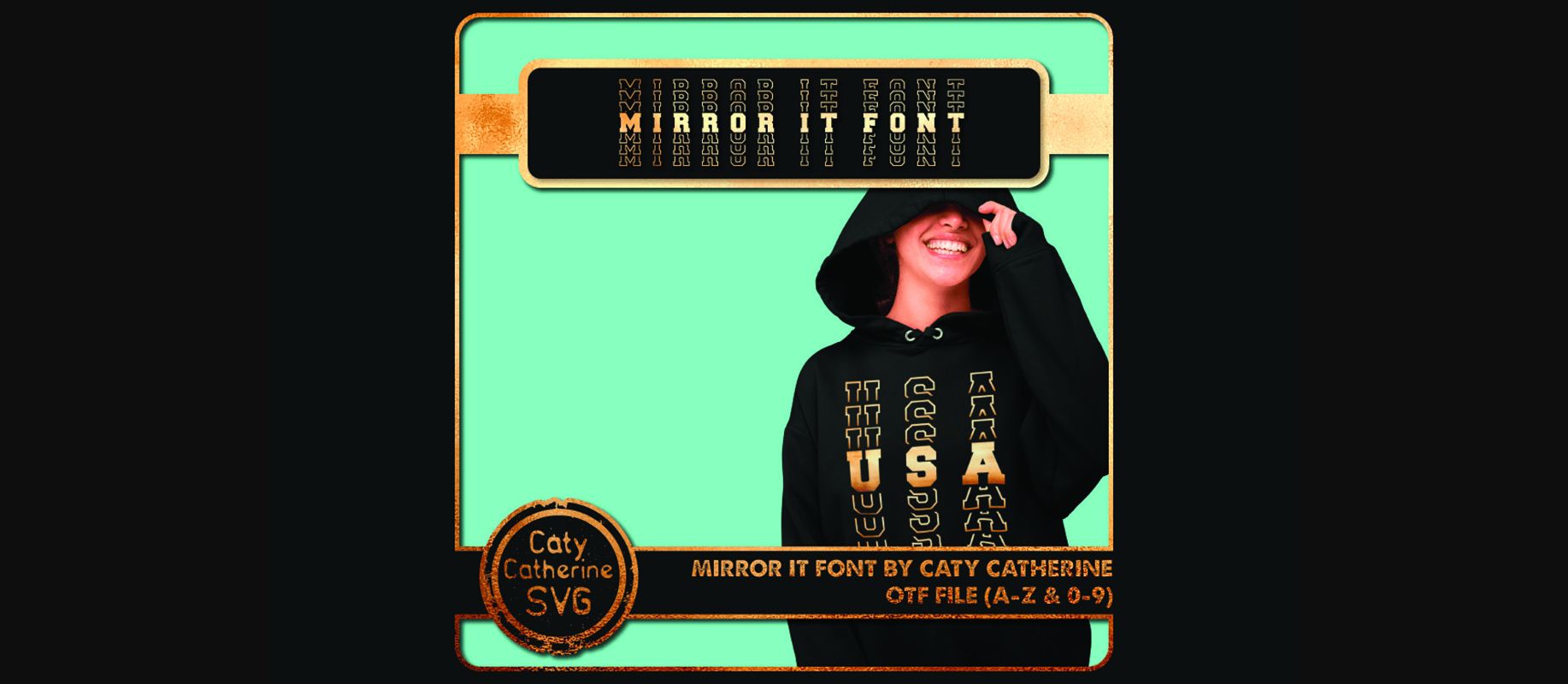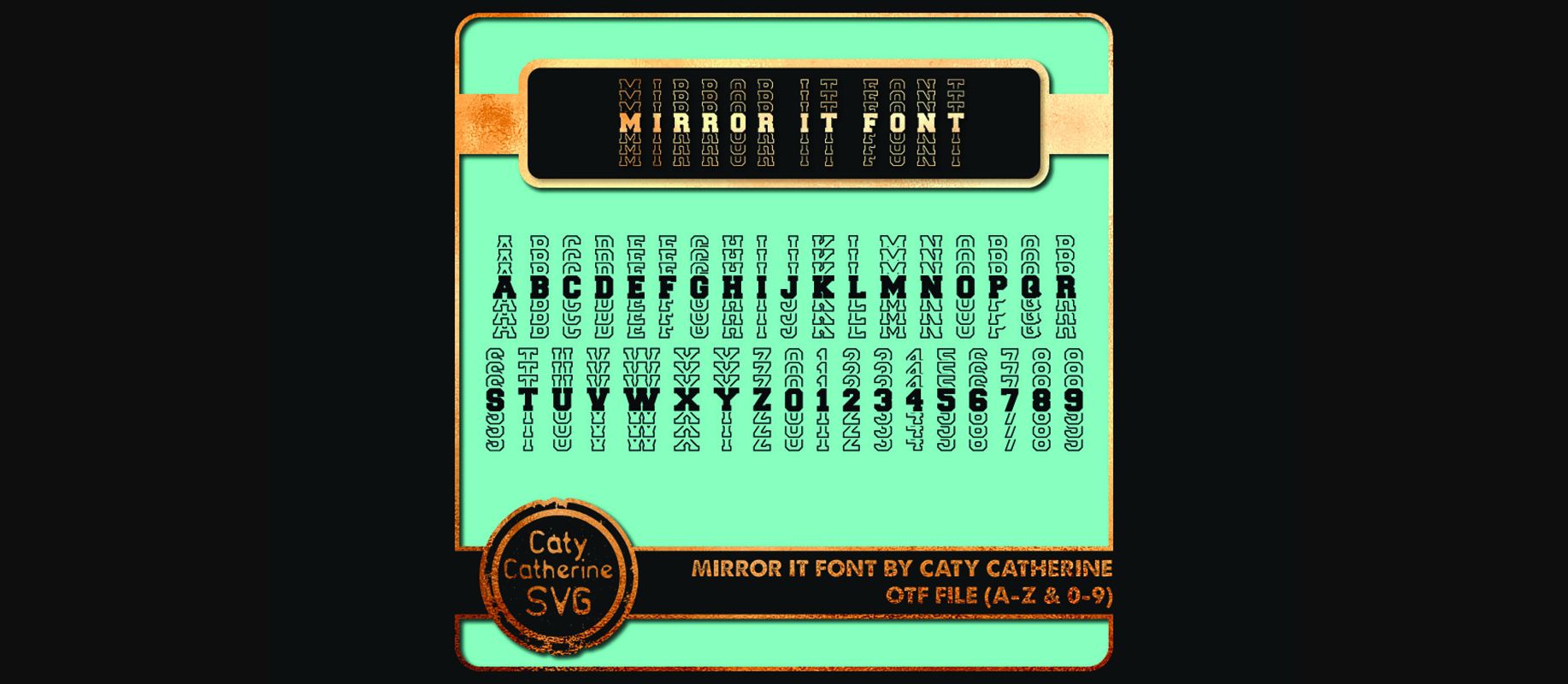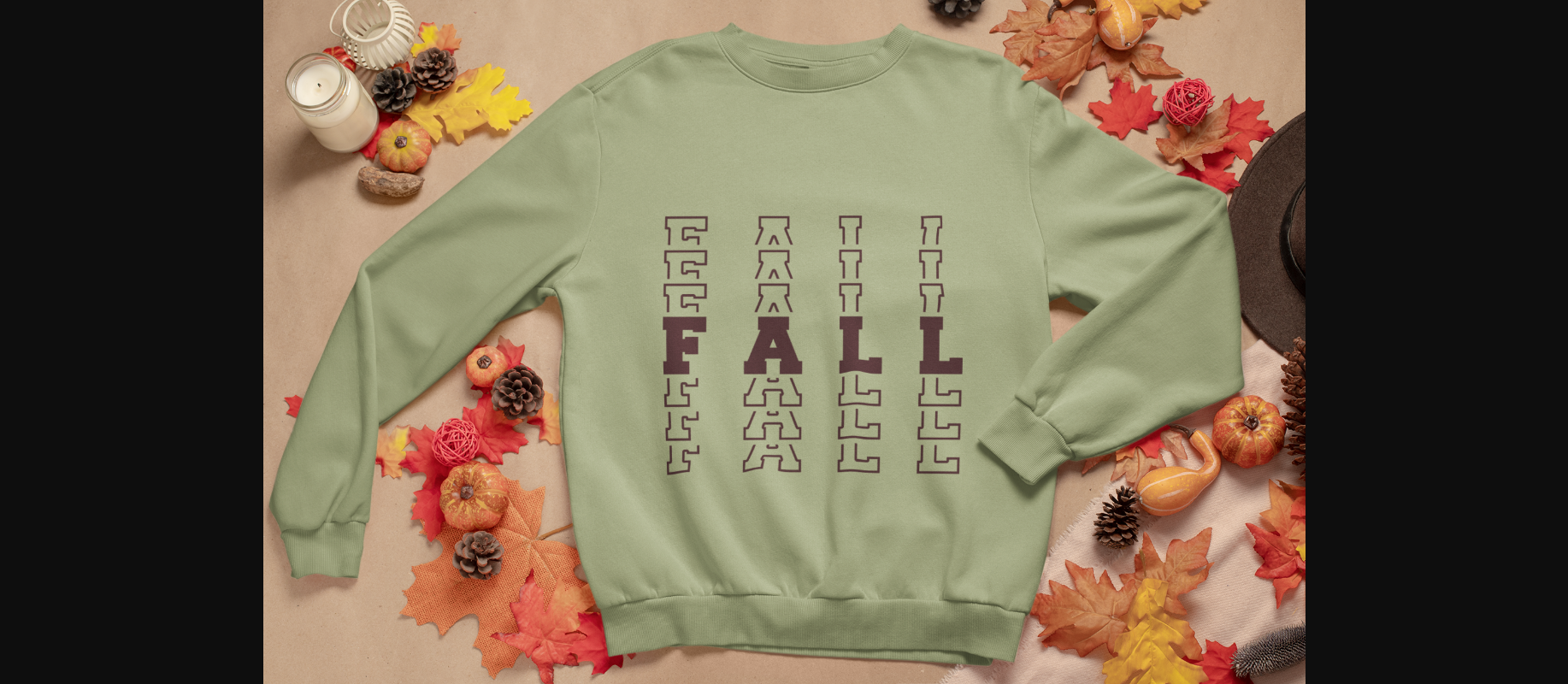
Mirror It Font
About Mirror It Font
Mirror it is a stunningly unique decorative font that will impress every time you use it! It’s perfect for magazine titles, bold marketing projects, book covers, and more!